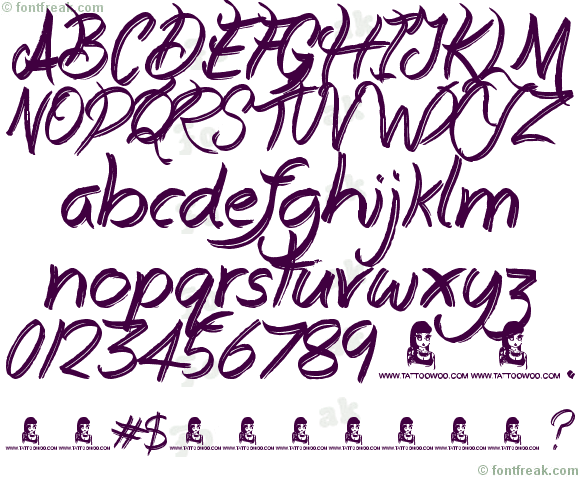
Everyday Mayhem
Everyday Mayhem, designed by Jonathan S. Harris, is a captivating handwritten font that captures the essence of casual elegance. This display-style typeface features a playful yet refined aesthetic, making it suitable for a variety of creative applications. The font showcases a medium stroke weight with a slight contrast, giving it a dynamic and lively appearance. The letters are thoughtfully spaced, allowing for easy readability while maintaining a sense of spontaneity that embodies its name.
The visual characteristics of Everyday Mayhem include whimsical curves and unexpected angles, which add a touch of personality and flair. Decorative elements within the letters create a sense of movement, making this font ideal for projects that seek to convey energy and creativity. Its unique style is particularly well-suited for use in wedding invitations, where a personal touch is desired, as well as in movie posters that aim to grab attention. Additionally, Everyday Mayhem can enhance restaurant menus, providing a friendly and inviting atmosphere, and be effectively used in promotional materials for art events or craft fairs, where a handmade aesthetic resonates with the audience.
Targeting graphic designers, small business owners, and content creators, Everyday Mayhem offers a versatile solution for those looking to make a memorable impression with their typography. The font's free download option encourages experimentation, allowing users to incorporate it into their projects without financial constraints.
What makes Everyday Mayhem stand out is its ability to blend playfulness with sophistication. This font invites creativity and encourages a personal touch, making it a valuable addition to any designer’s toolkit. Whether for digital or print applications, Everyday Mayhem offers an engaging way to communicate messages with style and flair.